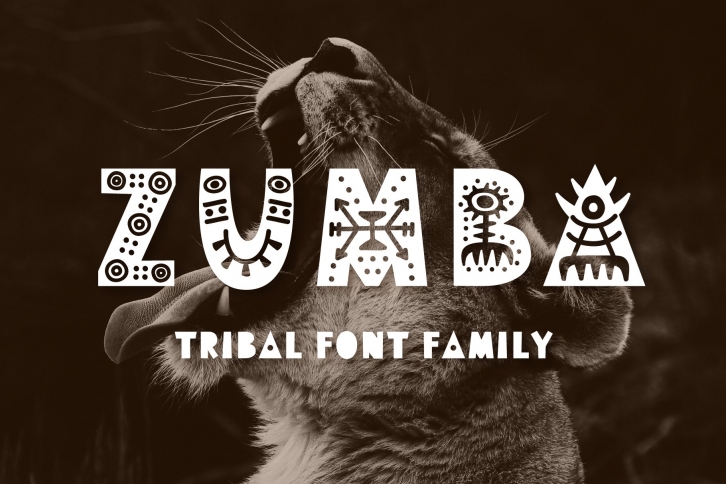
Hey everyone! This font family tells about my love to Africa. I'm glad to introduce you new decorative Zumba Tribal Font Family. It's perfect for lettering, hand craft products, branding, logos, monograms, headlines, hipster T-shirt prints and photo overlays.
This font includes Decorative, Black and Symbols, numbers and punctuations (please look at preview to see all symbols).